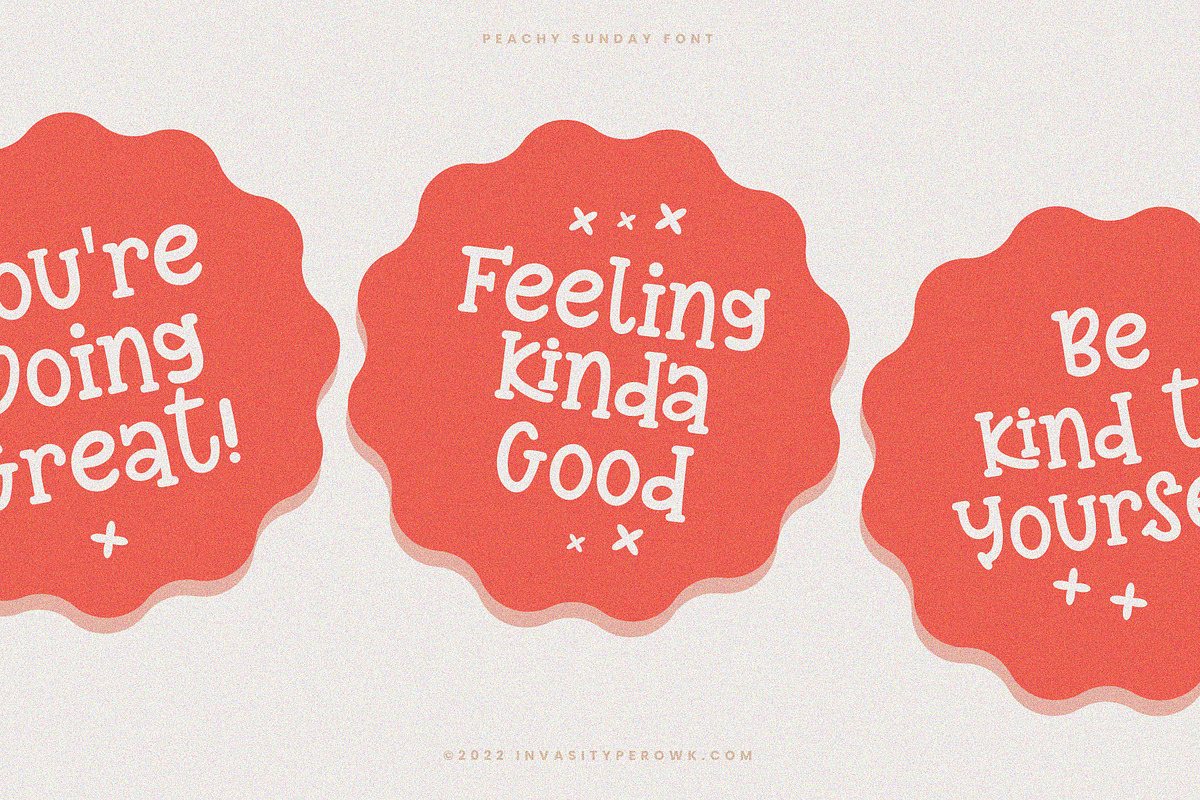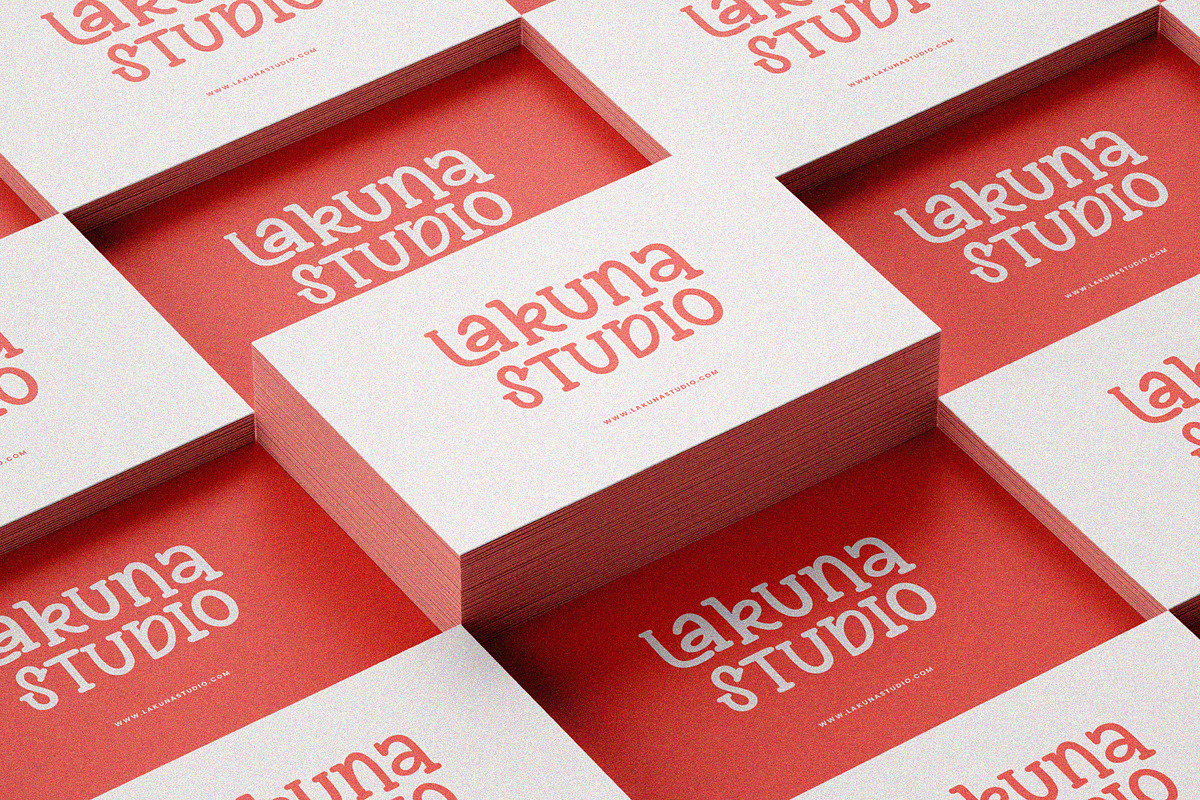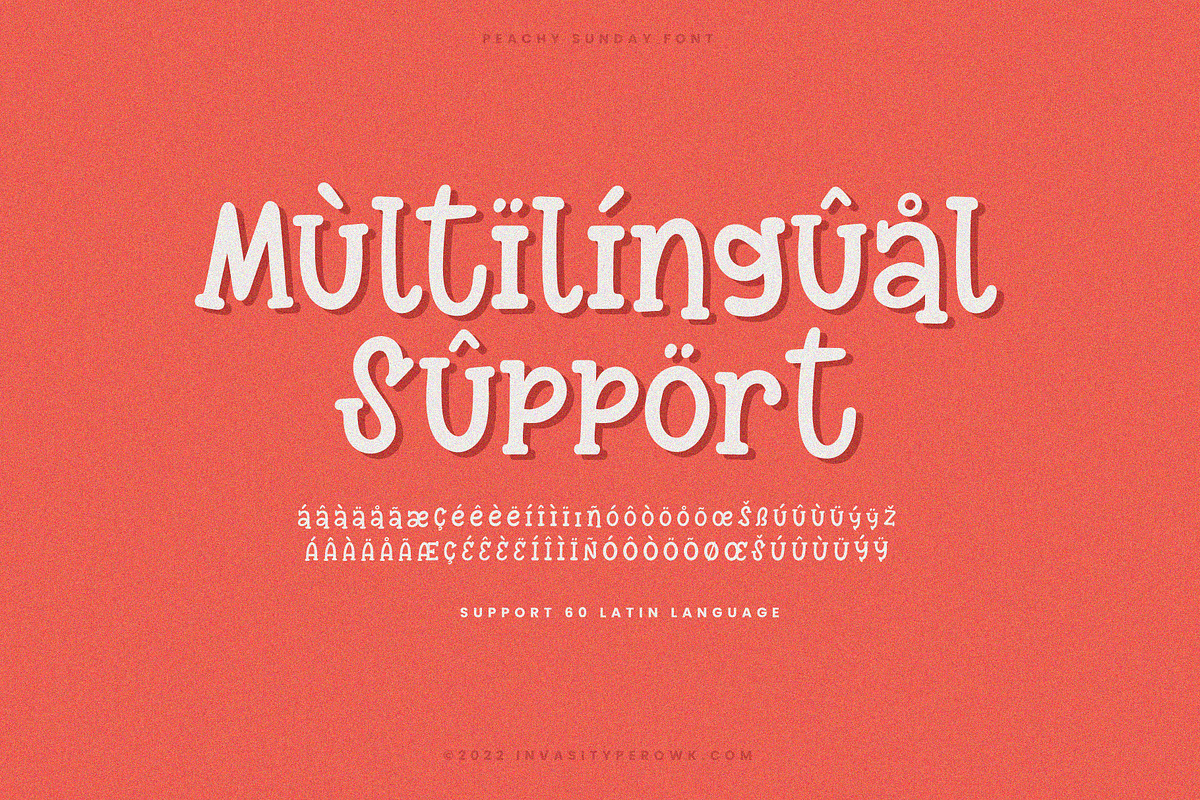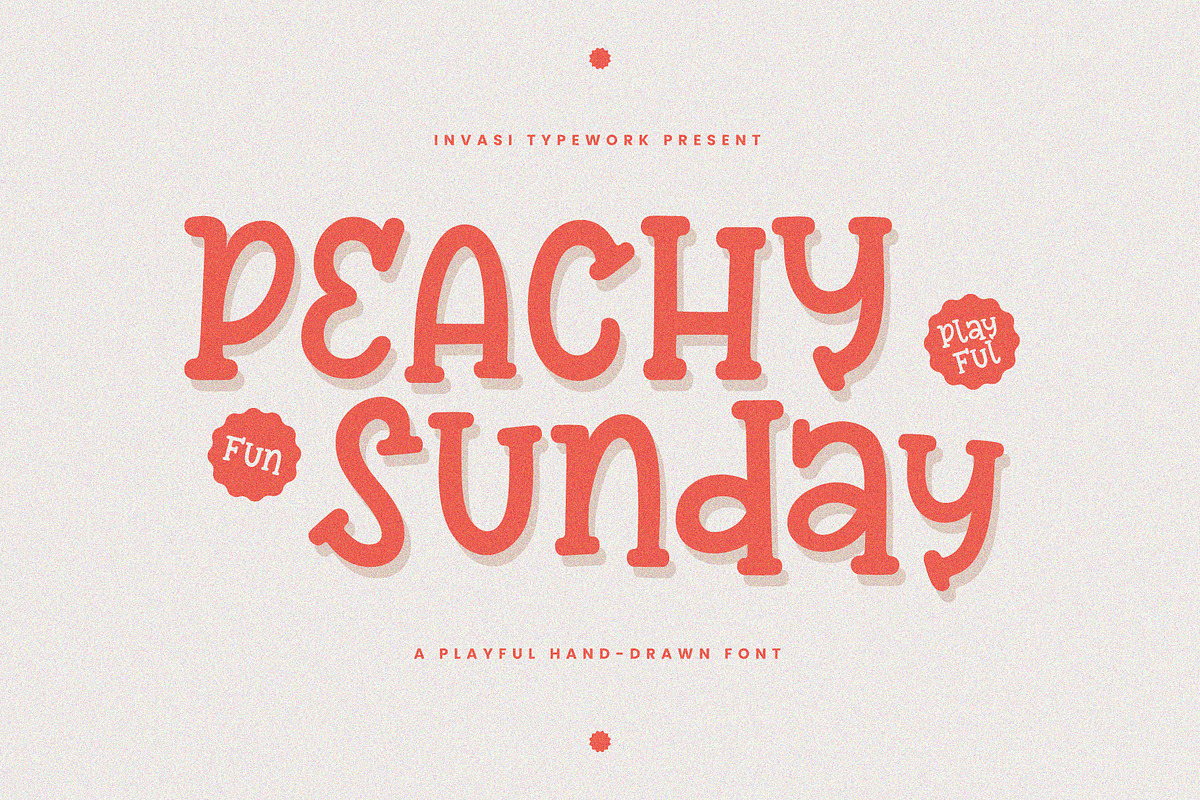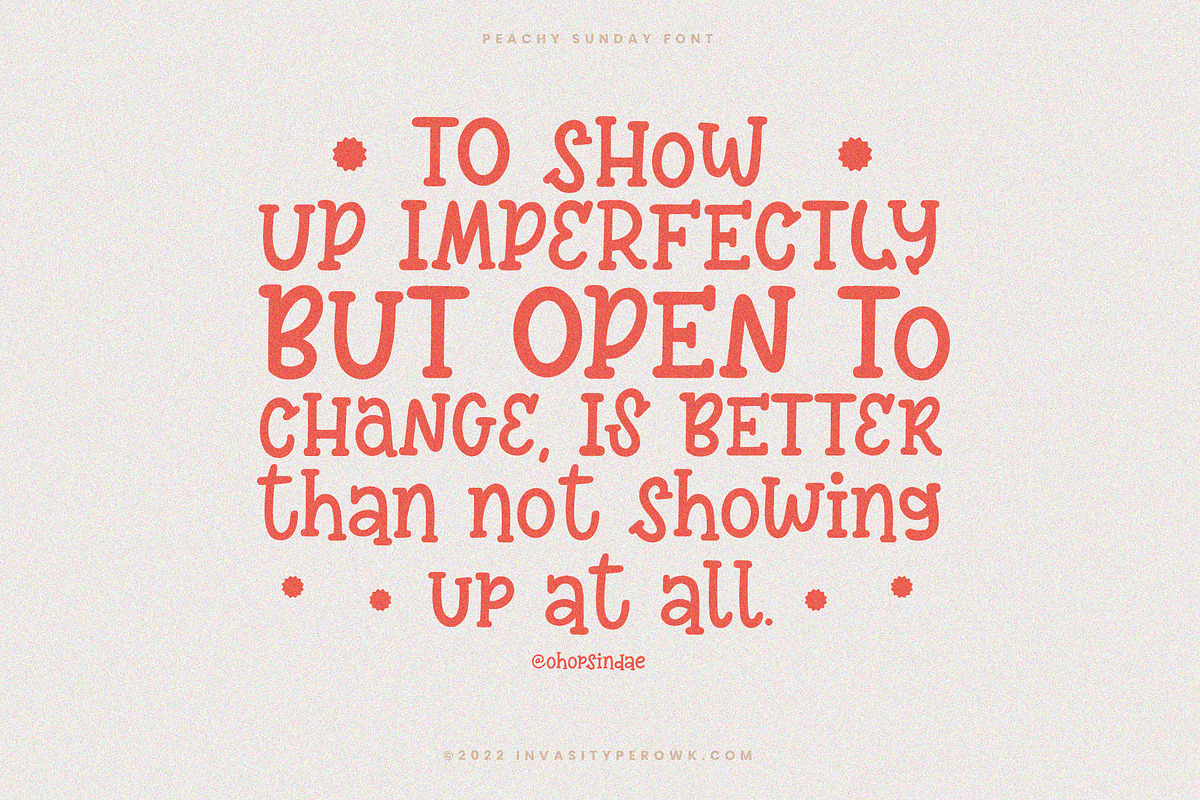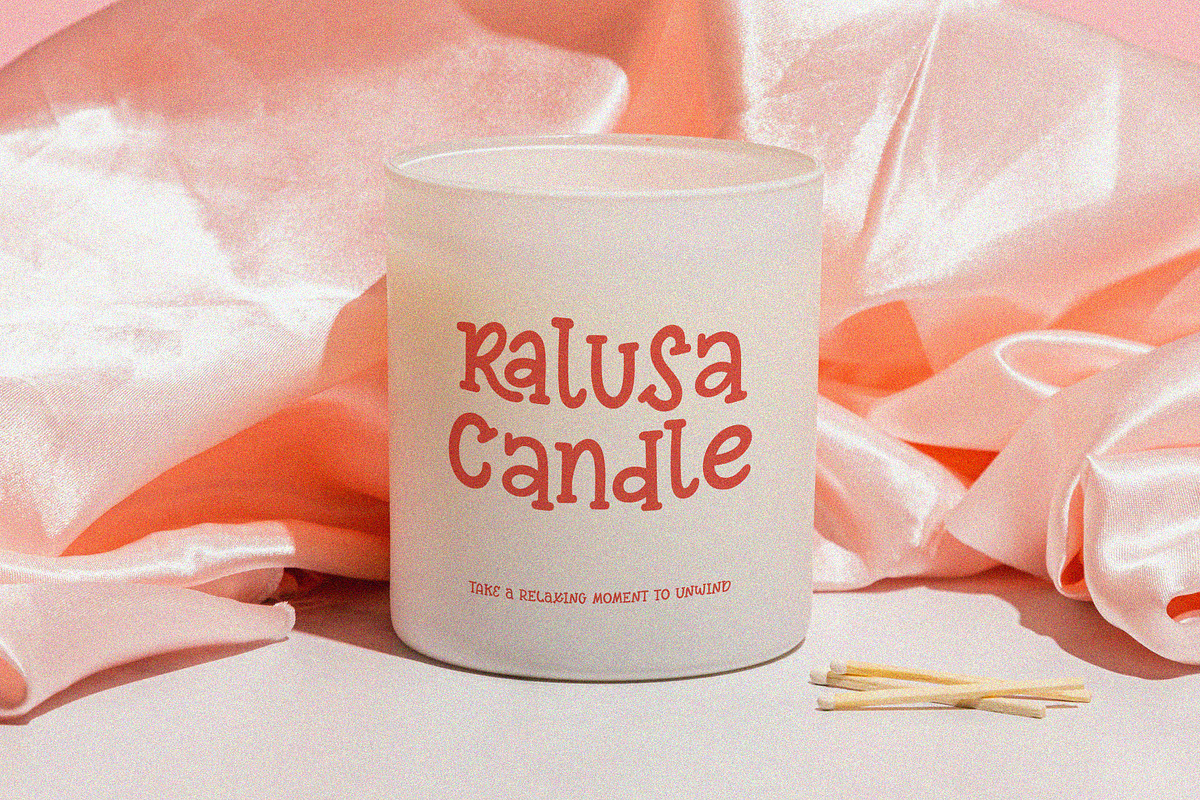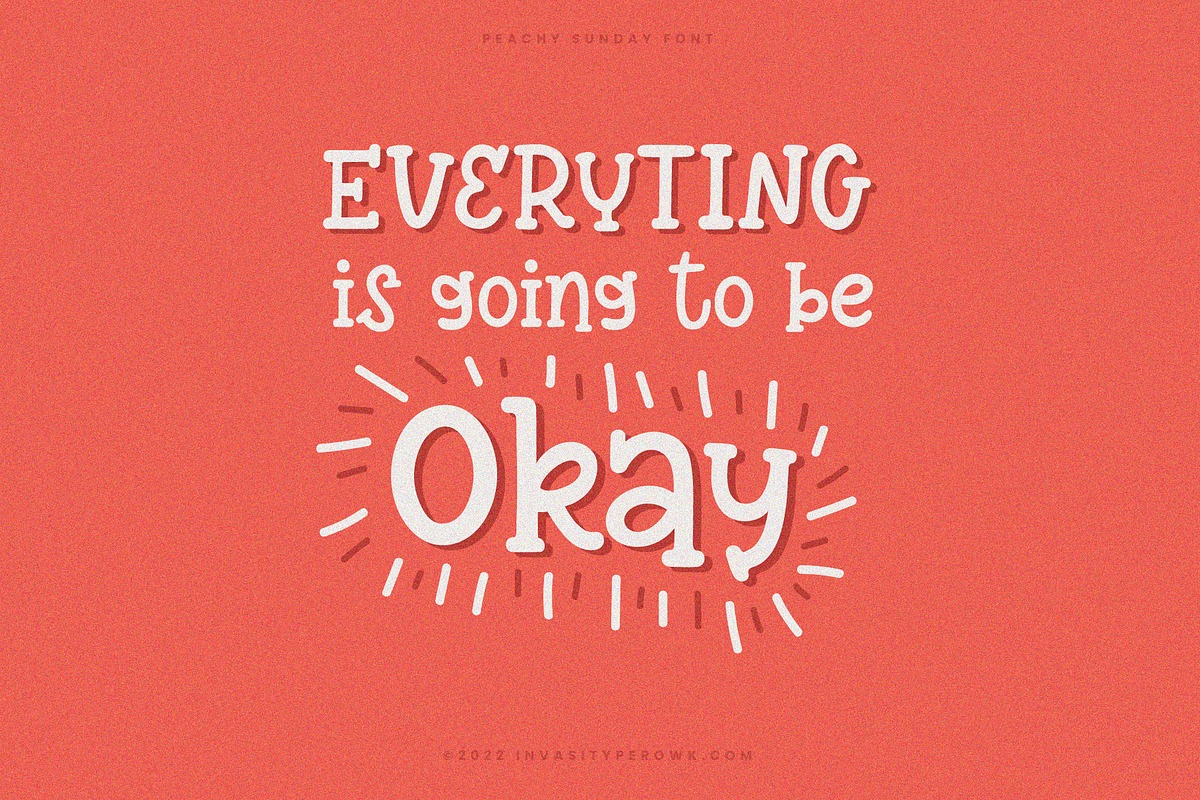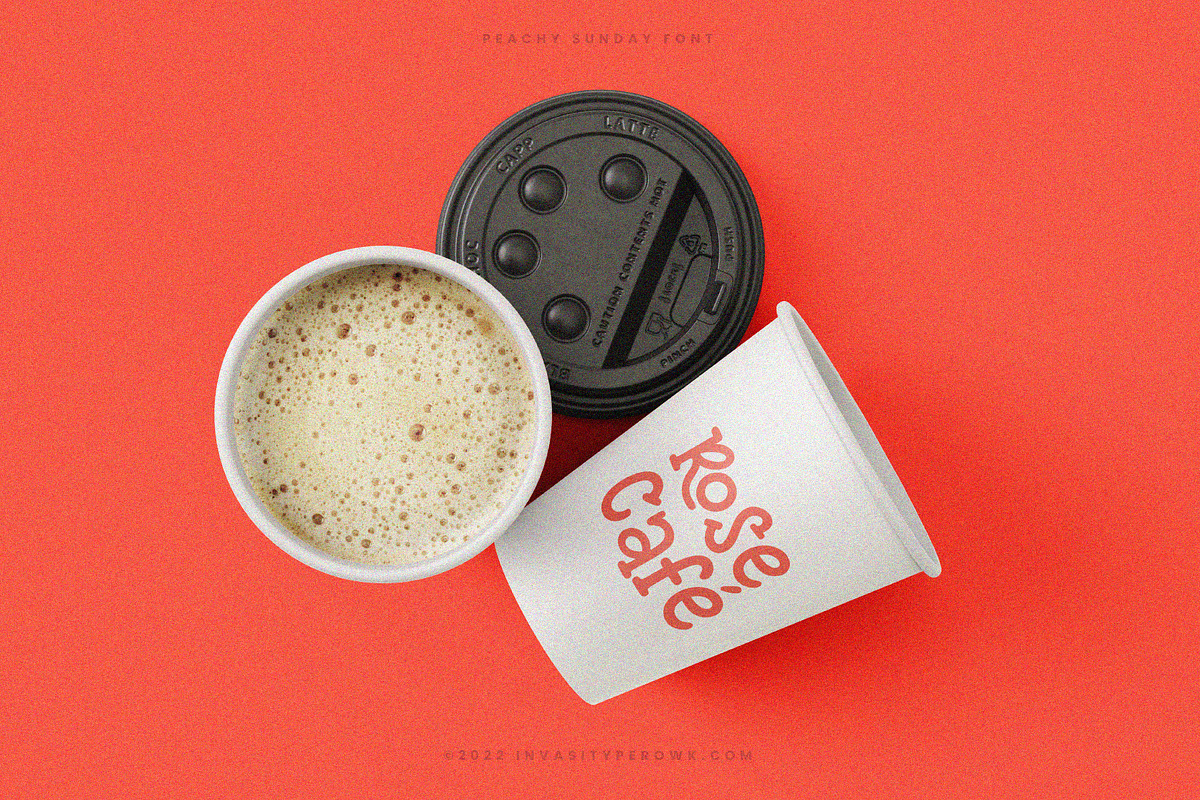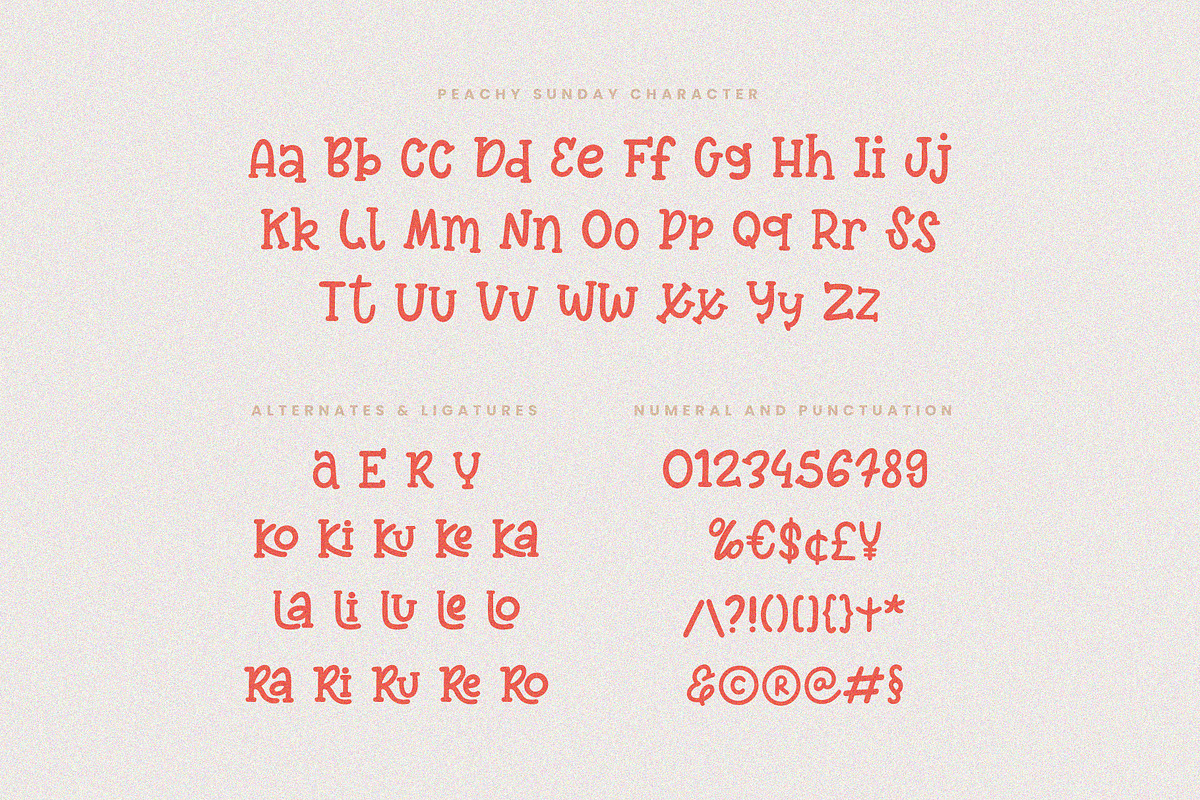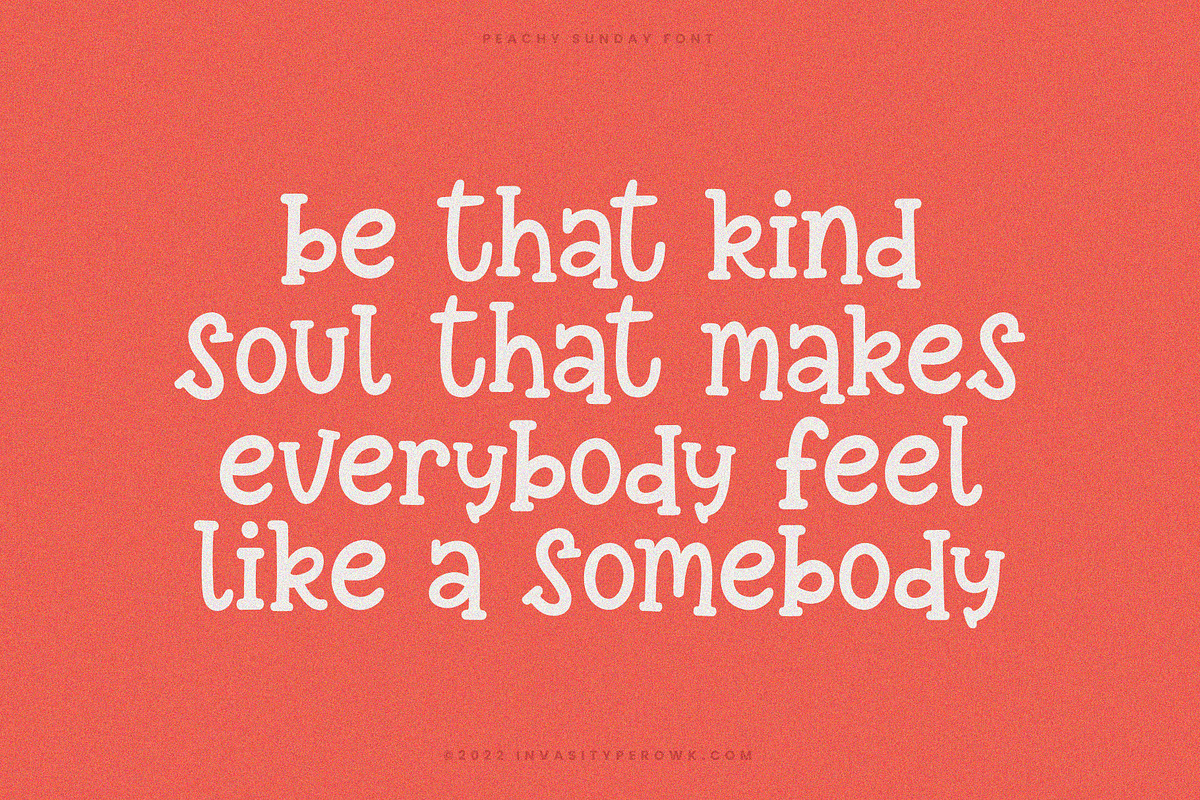
Peachy Sunday - Playful Handwritten
Here's our new Handwritten font collection. With Peachy Sunday - a hand-drawn retro semi slab serif with some irregularity between uppercase and lowercase, it adds a fun touch to the font. By using the PEU code, you can access all more fun alternates and ligatures from Peachy Sunday.
The Peachy Sunday is perfect for branding projects or packaging that need a playful retro feel.
- Multilanguage Supports 60+ Latin based languages